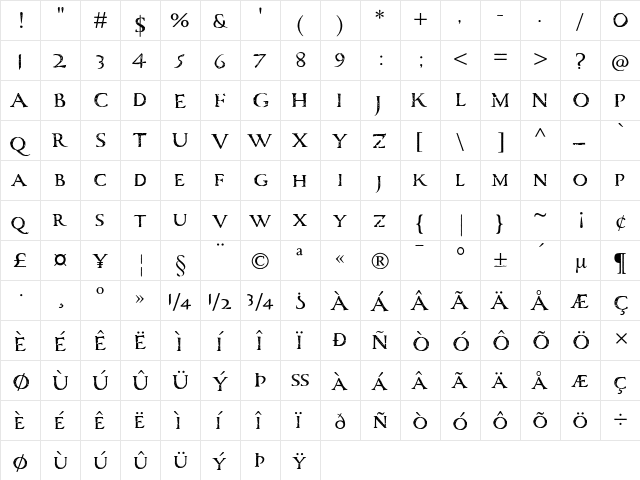
Carta Marina Regular
| Foundry | Jeremy Dooley |
Design Context for Carta Marina Typeface
Carta Marina is a composed and adaptable typeface that performs quietly and consistently across a wide range of design contexts.